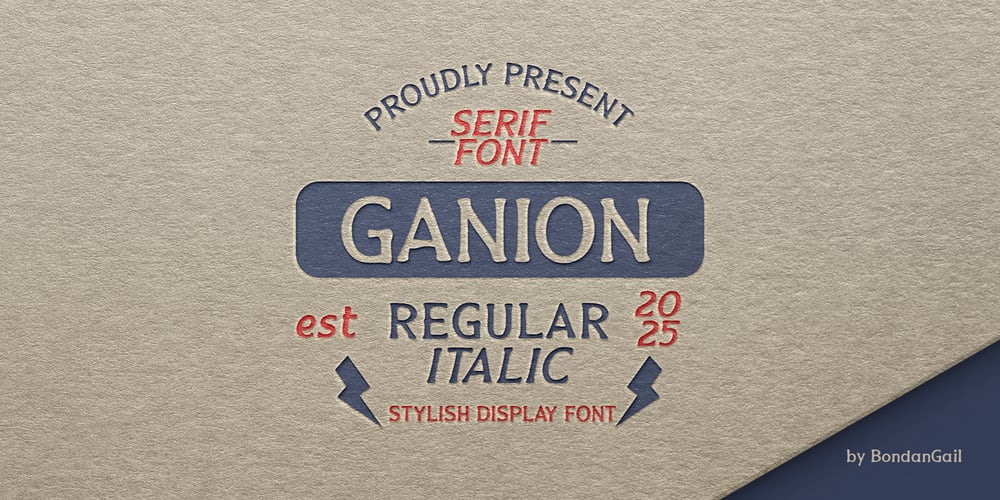
Ganion
Ganion font
Ganion Font Family was designed by Wahyu Eka Prasetya, Bondan Gail Saputro and published by BondanGail. Ganion contains 2 styles and family package options. Proudly Present Ganion – Classic Contemporary Type.Ganion features a classic serif design, characterized by thick and bold letters that convey strength and reliability. Its unique shapes add an attractive flair. The slight distressed texture suggests a vintage feel, enhancing its character and warmth.Ganion is ideal for logo, branding or signage where trust and tradition are essential. It works well for businesses like outwear, restaurant, bakery and artisanal shops.Elegant & Strong – This font’s bold letters convey confidence while maintaining a refined aesthetic.Versatile & Memorable – Perfect for logos, packaging, signage, and promotional materials across various industries.Classic Meets Contemporary – A blend of timeless elegance and modern design, ensuring your message stands out.